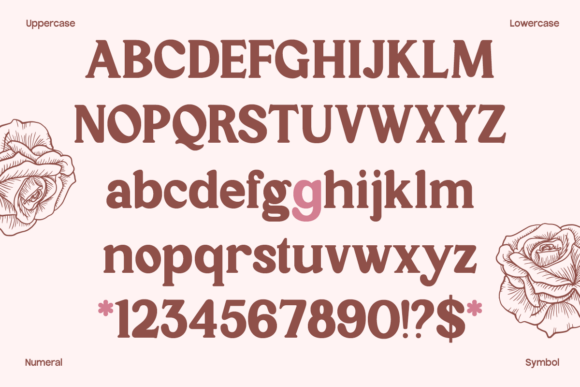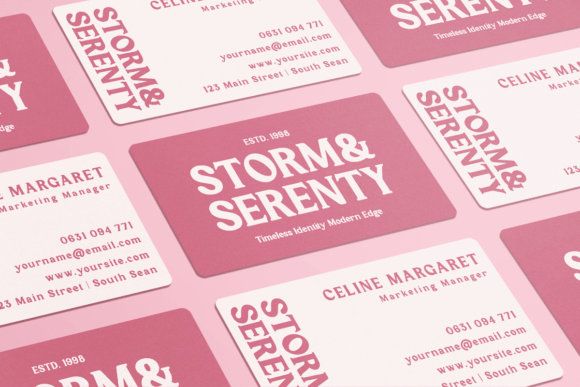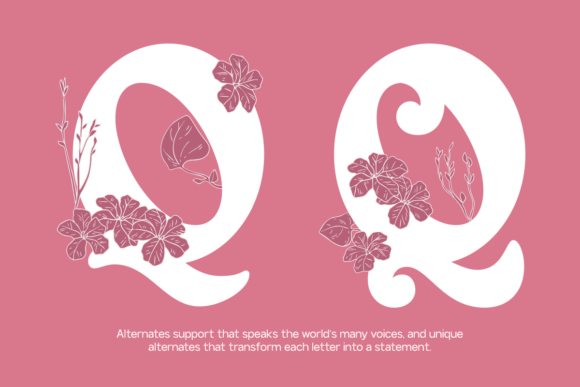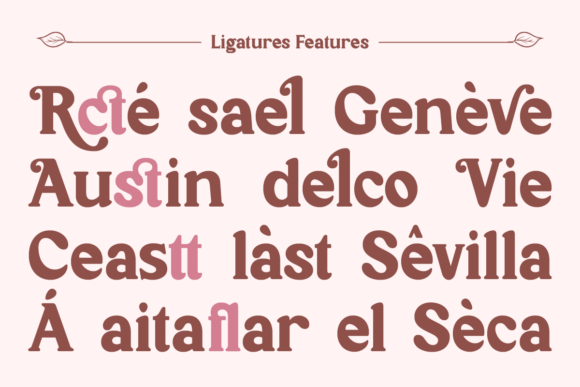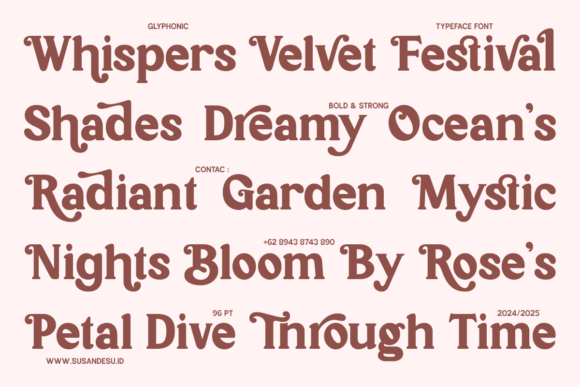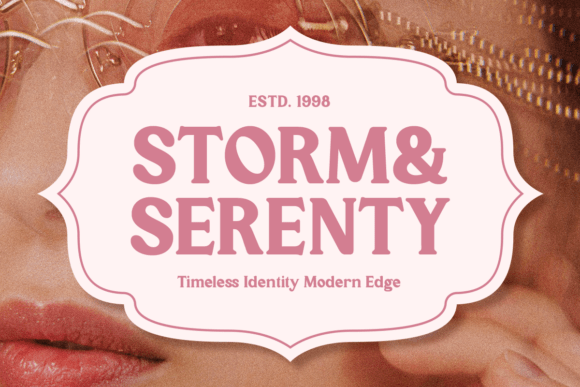
Bring Timeless Elegance to Your Design
Imagine you’re flipping through an old magazine, and the words leap off the page, captivating your attention. The typography is elegant, yet nostalgic, and you can’t help but be drawn in. This is the kind of magic that the Gc Rose Marine Font can bring to your design.
With its classic serif style and retro charm, this font is perfect for designers who want to add a touch of heritage to their work. Whether you’re creating a vintage-inspired campaign or a modern visual identity, the Gc Rose Marine Font is versatile and adaptable, delivering a distinctive voice that stands out in any medium.
As a designer, you know the importance of choosing the right font to convey your message. That’s why the Gc Rose Marine Font is a valuable addition to any toolkit, offering a perfect blend of nostalgia and sophistication that’s sure to elevate your typography game.
Gc Rose Marine Font Key Features
- Unique Characteristics: Gc Rose Marine Font features a unique blend of elegant and modern elements, making it ideal for creating visually striking designs.
Gc Rose Marine Font Review
I’ve had the chance to work with the Gc Rose Marine Font, and I must say, it’s a unique and eye-catching choice for any design project. Here’s what I think works well:
- ✨ Elegant and sophisticated feel: The Gc Rose Marine Font exudes a sense of refinement and class, making it perfect for luxury brands, high-end products, or any design that requires a touch of sophistication.
- ✨ Versatility: Despite its elegant feel, the font is surprisingly versatile and can be used in a variety of contexts, from headings to body text.
- ✨ High-quality rendering: The font renders beautifully at different sizes and resolutions, making it a great choice for digital designs.
However, there are a few limitations I’d like to mention:
- ⚠️ Limited language support: The Gc Rose Marine Font seems to be optimized for Western languages only, which might limit its use for multilingual designs.
- ⚠️ Limited character set: The font doesn’t include a comprehensive character set, which might cause issues for designs that require special characters or symbols.
Overall, the Gc Rose Marine Font is a solid choice for designers who need a sophisticated and elegant font for their projects. While it has its limitations, it’s a great addition to any design toolkit. Just be mindful of the potential limitations when working with languages and characters outside of Western languages.
Tips for Getting the Most Out of Gc Rose Marine Font
Here are some tips to help you get the most out of Gc Rose Marine Font:
- Use it for titles and headings to add a touch of elegance.
- Pair it with bold or italic fonts for contrast.
Gc Rose Marine Font is ideal for:
- Luxury branding and packaging.
- High-end marketing materials.
Alternatives to Gc Rose Marine Font
Ostrich Sans is a modern sans-serif font that offers a similar aesthetic to Gc Rose Marine Font. It features clean lines, geometric shapes, and a neutral color palette, making it suitable for a wide range of applications, including logos, branding, and digital interfaces. When to use: For modern and minimalist designs, especially in tech and finance sectors.
Comparison to Gc Rose Marine Font: While both fonts are modern and sans-serif, Ostrich Sans has a more geometric and futuristic feel, whereas Gc Rose Marine Font has a more elegant and refined look.
Montserrat is a geometric sans-serif font that shares similarities with Gc Rose Marine Font in terms of its clean and modern design. It features a strong grid-based structure and a wide range of weights, making it versatile for various applications, including typography, logos, and branding. When to use: For urban and modern designs, especially in fashion, technology, and travel sectors.